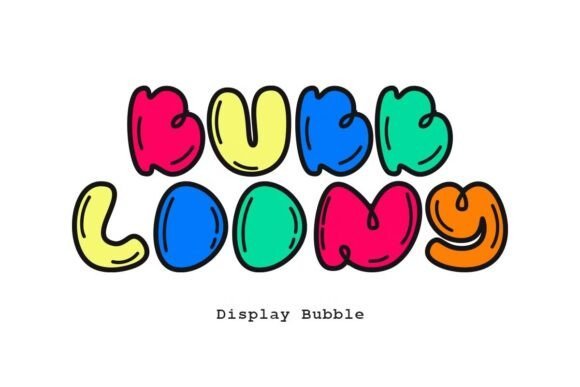
The Perfect Splash of Fun: Introducing Bubbloony Font
Do you remember the excitement of creating a colorful masterpiece as a child? Perhaps it was a drawing, a painting, or a DIY project that brought a huge smile to your face. For many designers, this spark of creativity never fades, and the desire to bring joy and imagination to their work remains strong. That’s where the Bubbloony Font comes in – a delightful addition to any design project that’s sure to capture the essence of playfulness and whimsy.
Bubbloony Font is a vibrant bubble font designed to add a touch of personality to your creative projects. With its rounded, bubbly characters, this font is perfect for posters, invitations, social media graphics, logos, and merchandise. Whether you’re working on a children’s theme, creative branding, or simply want to add some fun to your design, the Bubbloony Font is an excellent choice.
Bubbloony Font Key Features
- Font Family: Bubbloony is a custom-designed font family available in multiple weights, from light to bold.
- Character Set: Bubbloony includes a wide range of characters, including Latin, Cyrillic, and Greek alphabets, as well as punctuation and symbols.
- Unique Characteristics: Bubbloony features a playful, hand-drawn style with rounded edges and subtle texture, making it perfect for creative and whimsical designs.
Bubbloony Font Review
Overall, I think Bubbloony Font is a fun and playful choice for digital designs, but it’s not perfect. ✨ Here are some things that work well:
- It’s super versatile and can be used in a variety of contexts, from children’s books to social media graphics.
- The font is highly customizable, allowing designers to adjust the size, color, and even the bubble shapes to suit their needs.
- The Bubbloony Font is highly readable, even at small font sizes, making it a great choice for digital screens.
- The font can feel a bit too playful for more serious or professional designs, which may not be suitable for all projects.
- The customization options can be overwhelming, especially for designers who are new to the font.
- The font may not be suitable for longer blocks of text, as the bubbles can make it difficult to read.
Overall, I would recommend Bubbloony Font to designers who are looking for a fun and playful option for their digital designs. Just be sure to use it thoughtfully and consider the limitations mentioned above.
Getting the Most Out of Bubbloony Font
To get the most out of Bubbloony Font, try combining it with bold or italic text for added emphasis. You can also experiment with different font sizes to create visual hierarchy.
Bubbloony Font is ideal for use in playful and creative designs, such as:
– Children’s educational materials
– Party invitations
– Branding materials for fun and quirky businesses
Alternatives to Bubbloony Font for Designers
Pacifico is a beautiful, modern script font perfect for creating a touch of elegance and sophistication in your designs. It’s ideal for use in wedding invitations, branding, and other high-end projects. Compared to Bubbloony Font, Pacifico has a more refined and luxurious feel, making it a great choice for designers looking to create a high-end aesthetic.
Great Vibes is a modern script font that’s perfect for adding a playful and energetic feel to your designs. It’s great for use in social media graphics, advertising, and other projects where you want to create a fun and lively atmosphere. Compared to Bubbloony Font, Great Vibes has a more dynamic and expressive feel, making it a great choice for designers looking to create a bold and attention-grabbing design.
Carolyna Pro is a elegant and sophisticated script font that’s perfect for use in high-end branding, advertising, and editorial projects. It’s ideal for designers looking to create a classic and timeless aesthetic that exudes luxury and sophistication. Compared to Bubbloony Font, Carolyna Pro has a more refined and polished feel, making it a great choice for designers looking to create a high-end design that stands out from the crowd.